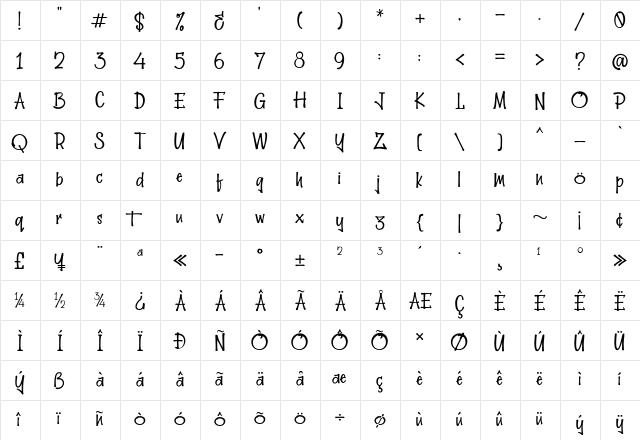
Hellobello 2 Regular
Hellobello 2 is a composed and adaptable typeface that performs quietly and consistently across a wide range of design contexts.